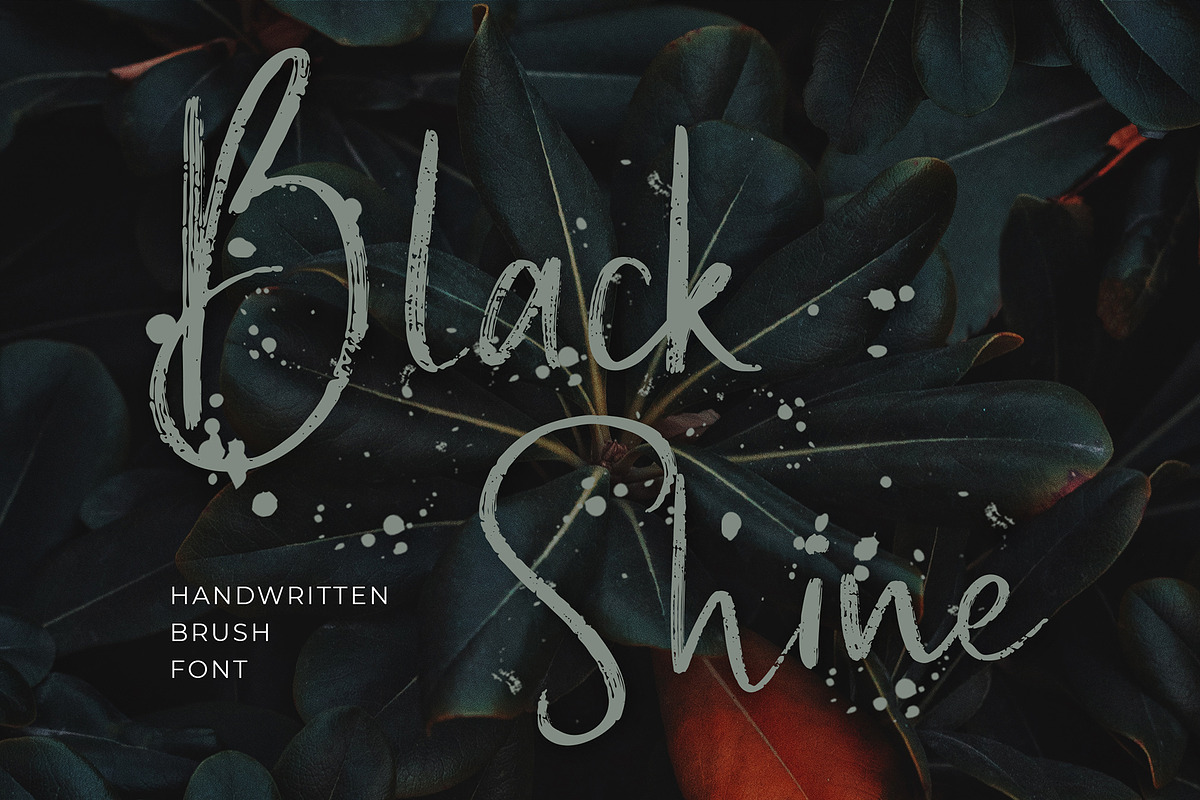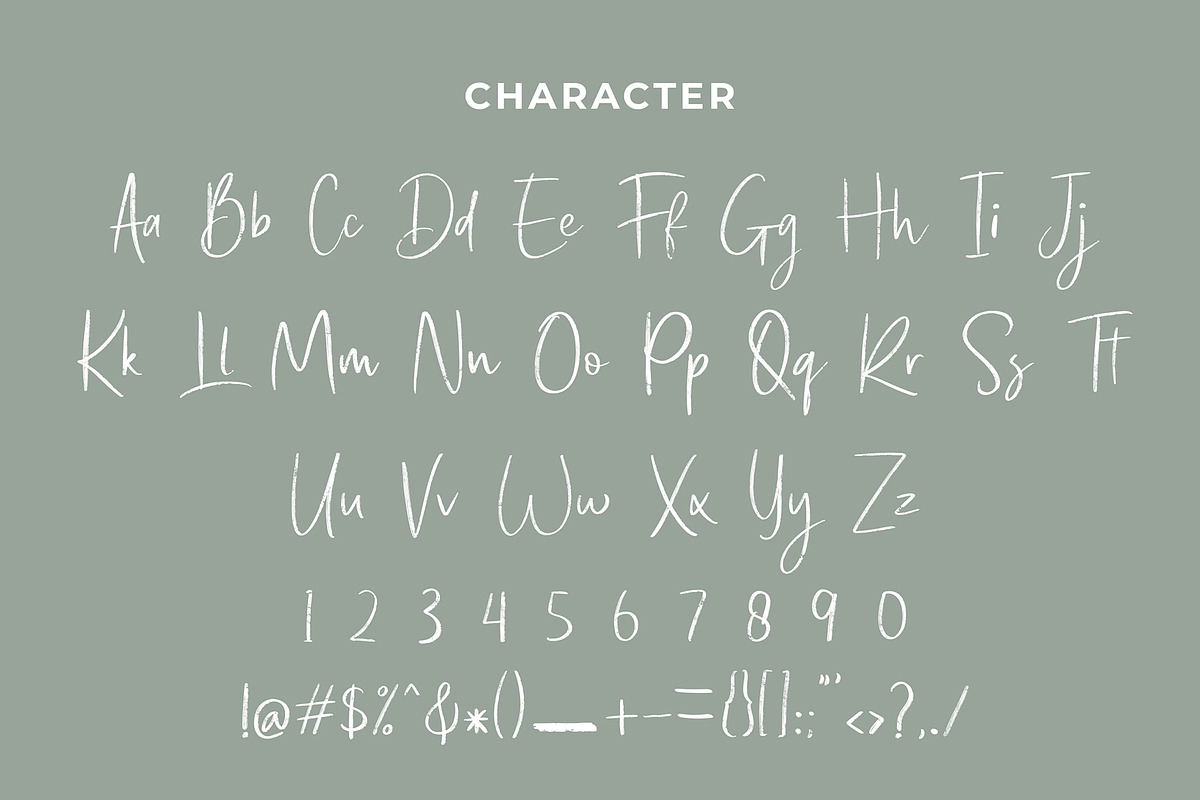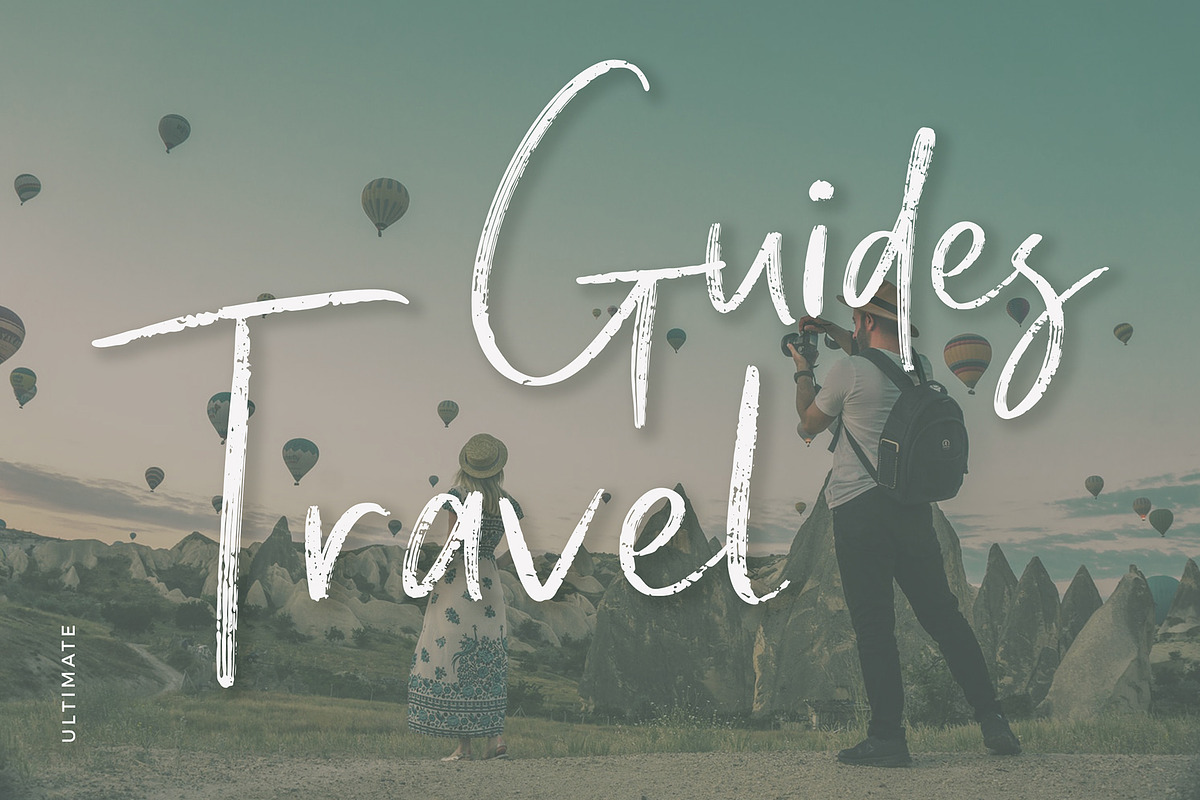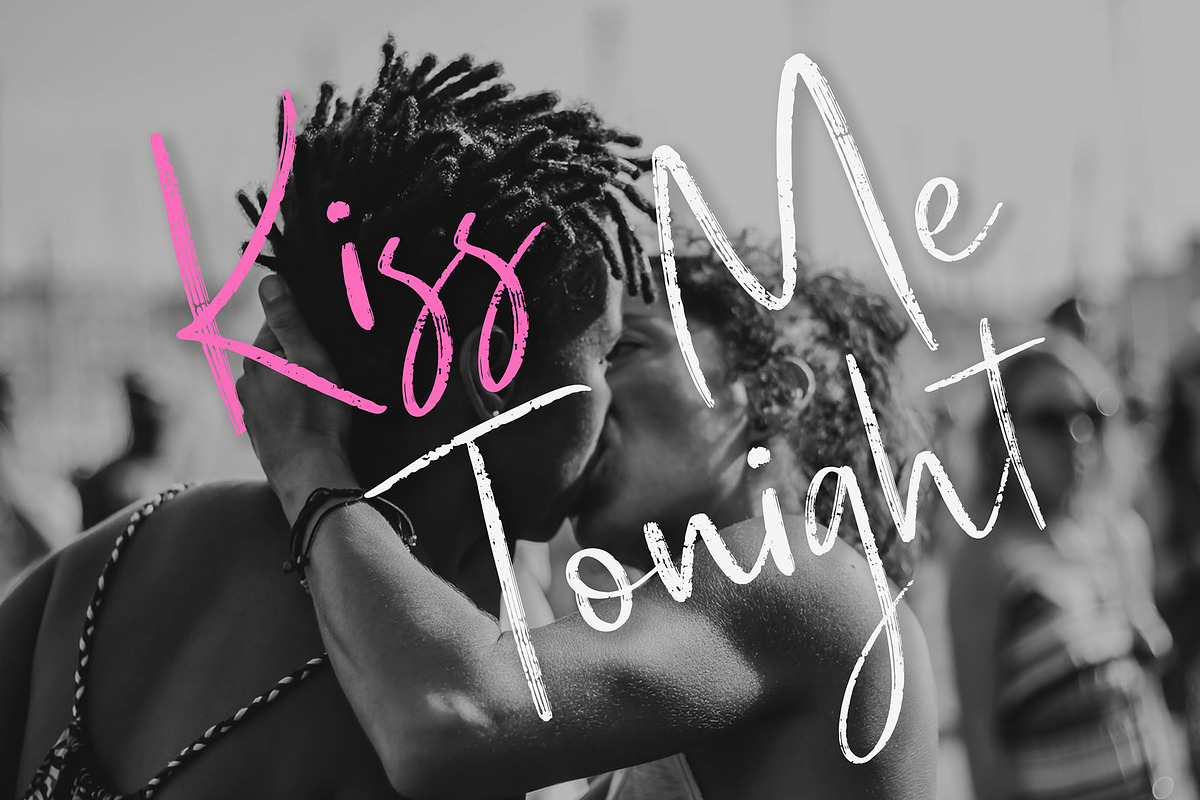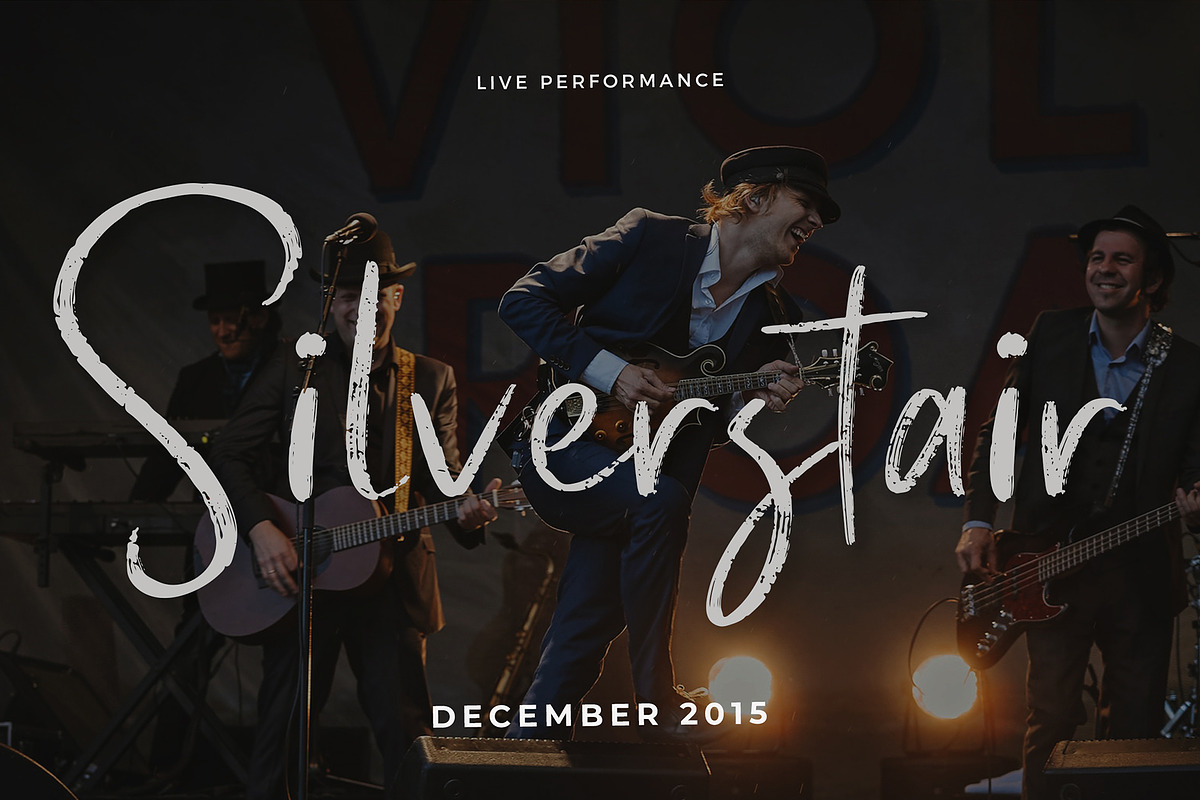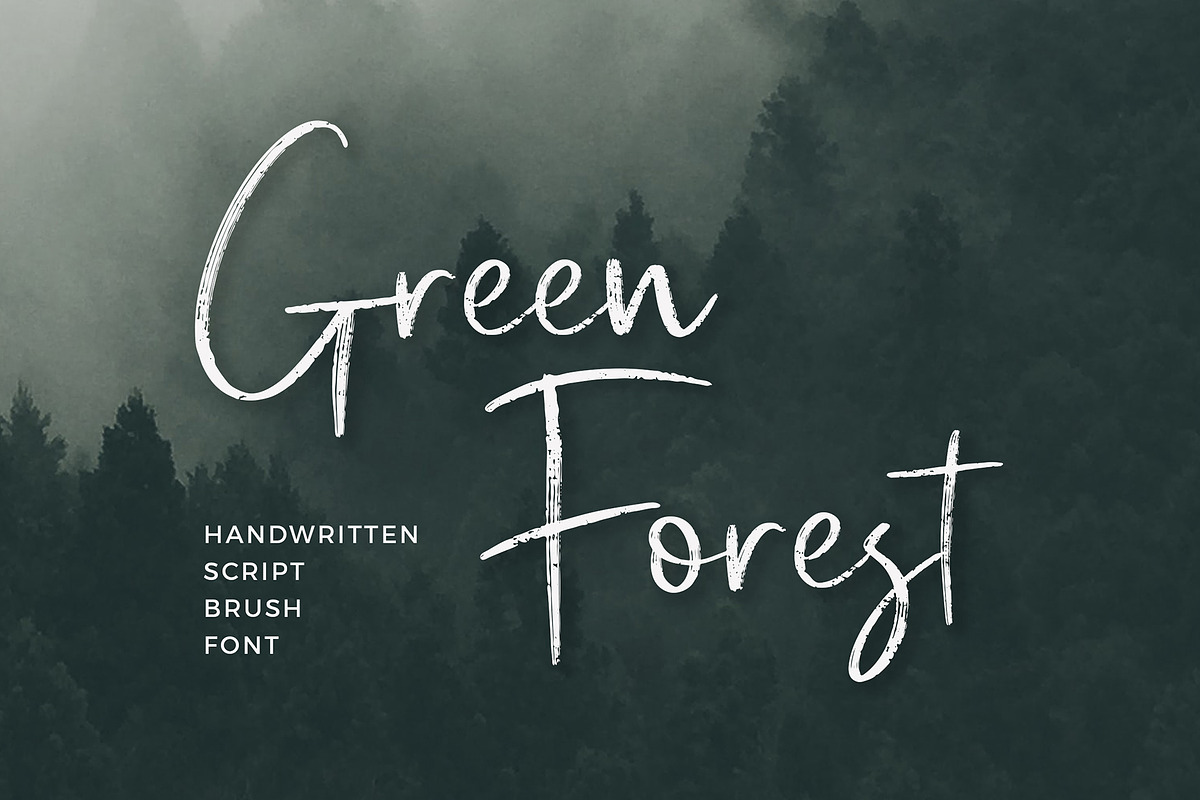
Black Shine Script Brush Font
Black Shine is an exciting handwritten Script font with brush style. This beautiful script can make your text appear elegant, luxurious, and modern!